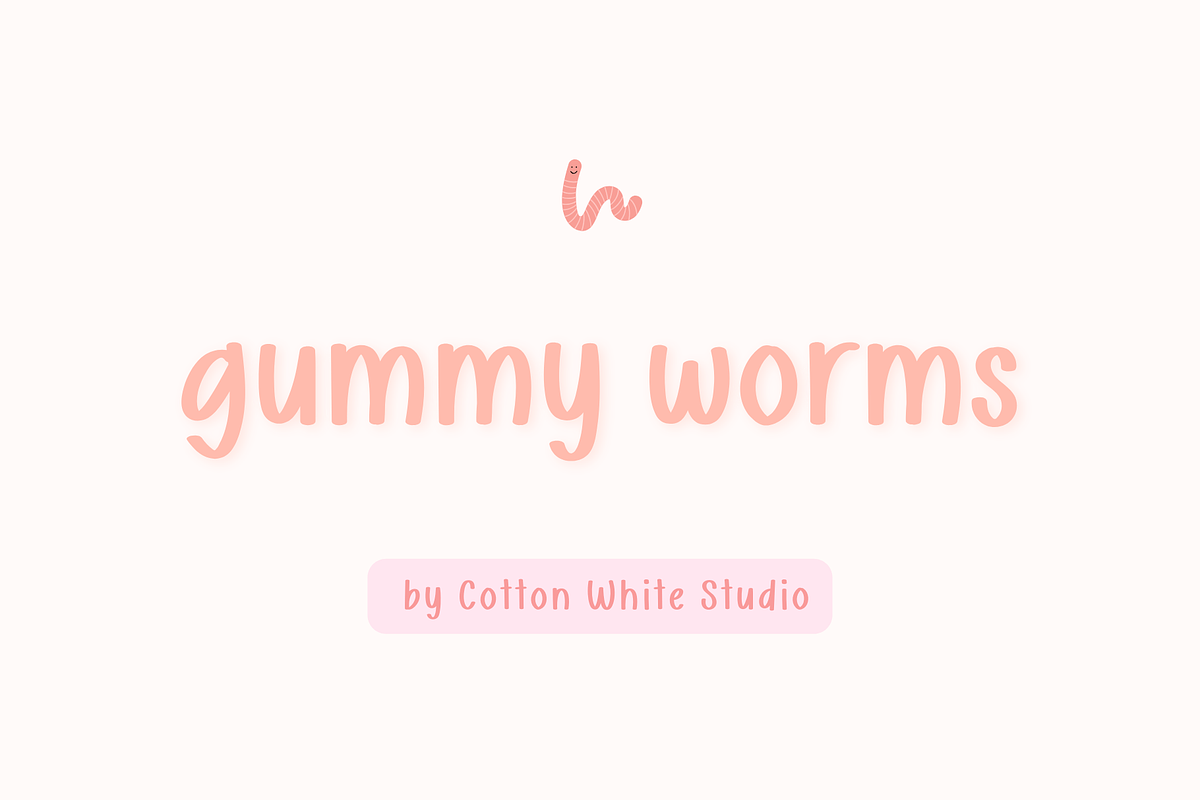
Gummy Worms Font Free Download is a sweet and squiggly typeface bursting with fun and personality. Inspired by the playful shape and texture of its candy namesake, this font is perfect for children’s books, candy packaging, party invitations, cartoon titles, and any project that needs a splash of colorful, goofy energy.
With its chunky letters, wavy lines, and whimsical style, Gummy Worms delivers a delightful visual treat. It's super readable while still bringing a sense of fun and motion, making it ideal for both print and digital applications where a youthful, energetic vibe is key.